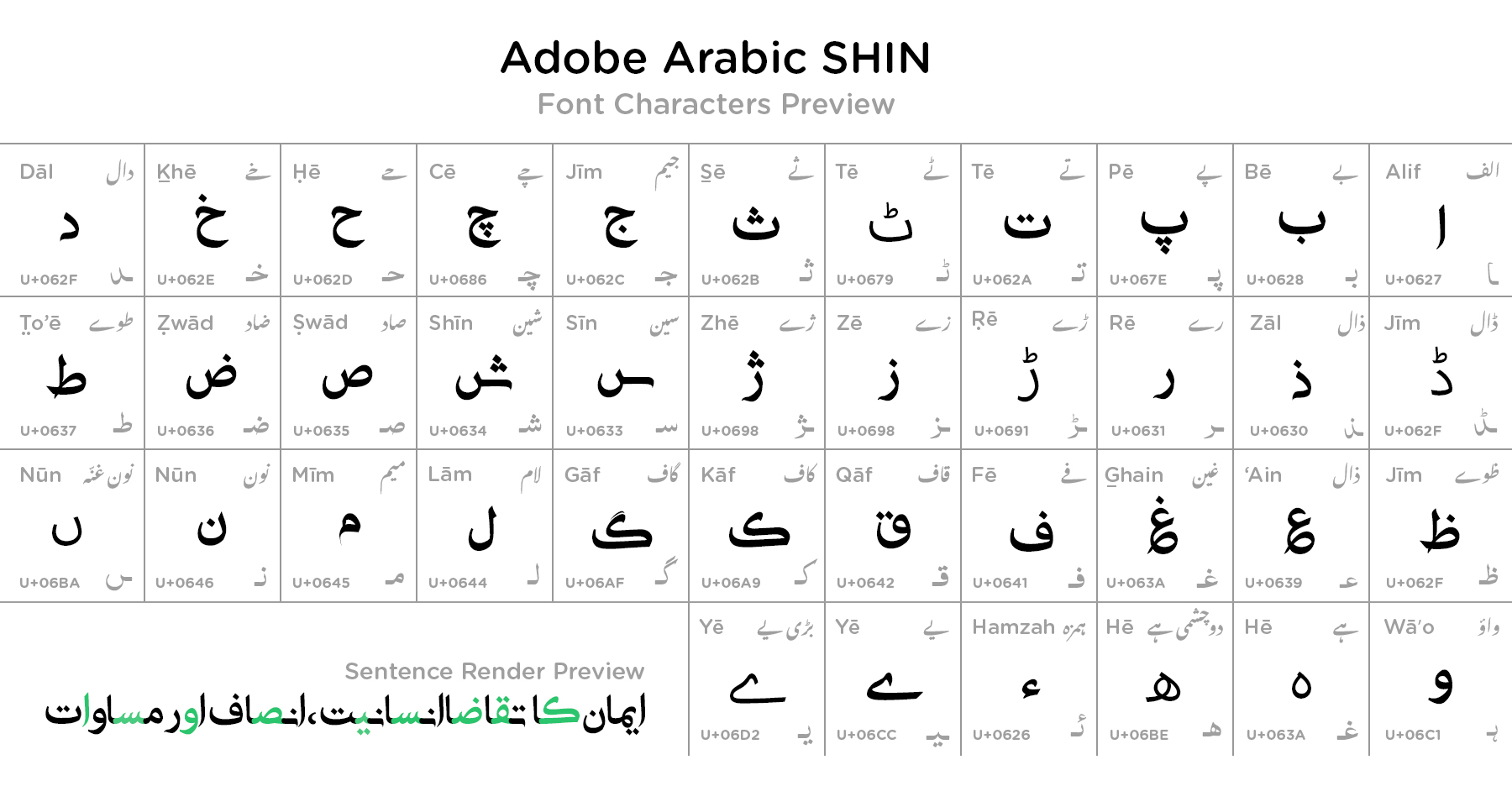
The Adobe Arabic Shin font, designed by Adobe in collaboration with Shahin Sabbaghi, stands out with its bold and wide appearance, featuring flowing terminals that add a touch of elegance. Released in 2018, it offers 329 characters and 528 glyphs, ensuring comprehensive language support for Arabic, Latin, and symbols. With a bold font weight and medium width, it strikes a balance between readability and visual impact. Its Unicode blocks cover Basic Latin, Latin-1 Supplement, Arabic, General Punctuation, Mathematical Operators, Geometric Shapes, Arabic Presentation Forms-A, and Arabic Presentation Forms-B, ensuring compatibility with various text encoding standards. It is available in two different styles, having subtle differences in their appearance. These styles are:
- Adobe Arabic SHIN Stout Bold
- Adobe Arabic SHIN Typo Bold
These fonts draw inspiration from the traditional Arabic calligraphy script Ruqqa and Naskh with modern design elements, making it look more appealing. SHIN Trout bold is more condensed with filled zero spaces, suggesting it’s strictly a Ruqaa font. Meanwhile, SHIN Typo Bold is a Naskh font with an easy-to-understand appearance. Arabic font with a soft and flowing appearance, characterized by wide sharp edges, offers a dynamic and captivating visual presence. Its letters boast varying thicknesses throughout the letterform, complemented by a solid stroke, ensuring clarity and readability. Even at smaller sizes, its legibility remains high on screen, making it suitable for a wide range of digital applications. This font type is best suited for short texts due to its bold and filled letterform. It is ideal for headlines, signage, branding, book covers, invitations, and various other design projects where a bold and impactful Arabic typeface is desired.